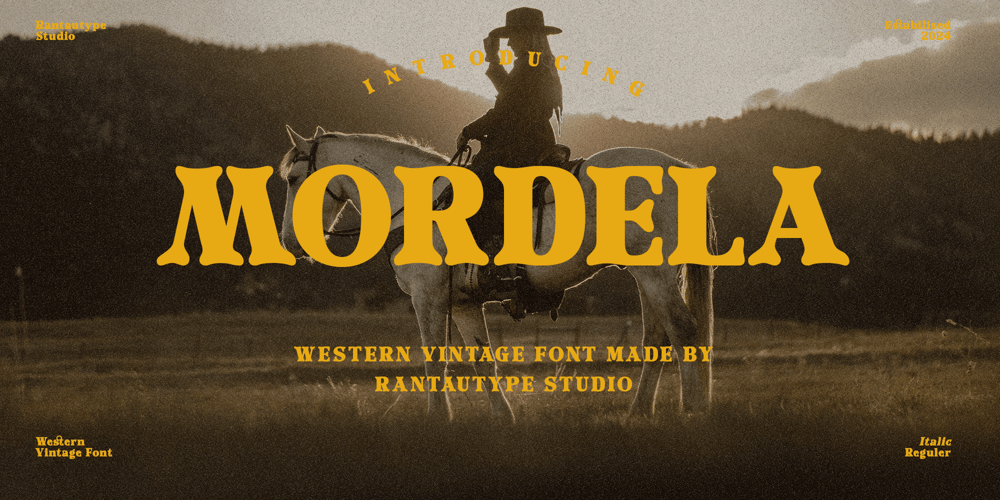
Mordela Font Family was designed by Yudi Pratama Chandra and published by RantauType. Mordela contains 2 styles and family package options. Mordela is western vintage font inspire by eighteen cowboy poster. Mordela bring authentic character with bold and wildwest essence. Mordela is a perfectly choice for any creative endeavor, chic, lifestyle design such as logos, advertisements, stationery, branding project, display and magazine, invitation, corporate brand, product design, label, business project and many other project with western touch.What you have: Standart Glyphs Numberial and Functional Ligature and alternate Works on PC & Mac Simple installations Accessible in Adobe Illustrator, Adobe Photoshop, Adobe InDesign, even work on Microsoft Word. Fonts include Multilingual Support for: Afrikaans, Albanian, Asu, Basque, Bemba, Bena, Breton, Chiga, Cornish, Dutch, English, Estonian, Filipino, Finnish, Friulian, Galician, Gusii, Indonesian, Irish, Italian, Kabuverdianu, Kalenjin, Kinyarwanda, Luo, Luxembourgish, Luyia, Machame, Makhuwa-Meetto, Makonde, Malagasy, Manx, Morisyen, North, Ndebele, Nyankole, Oromo, Portuguese, Quechua, Romansh, Rombo, Rundi, Rwa, Samburu, Sango, Sangu, Scottish, Gaelic, Sena, Shambala, Shona, Soga, Somali, Spanish, Swahili, Swedish, Swiss, German.Thank you for your purchase!Hope you enjoy with our font!